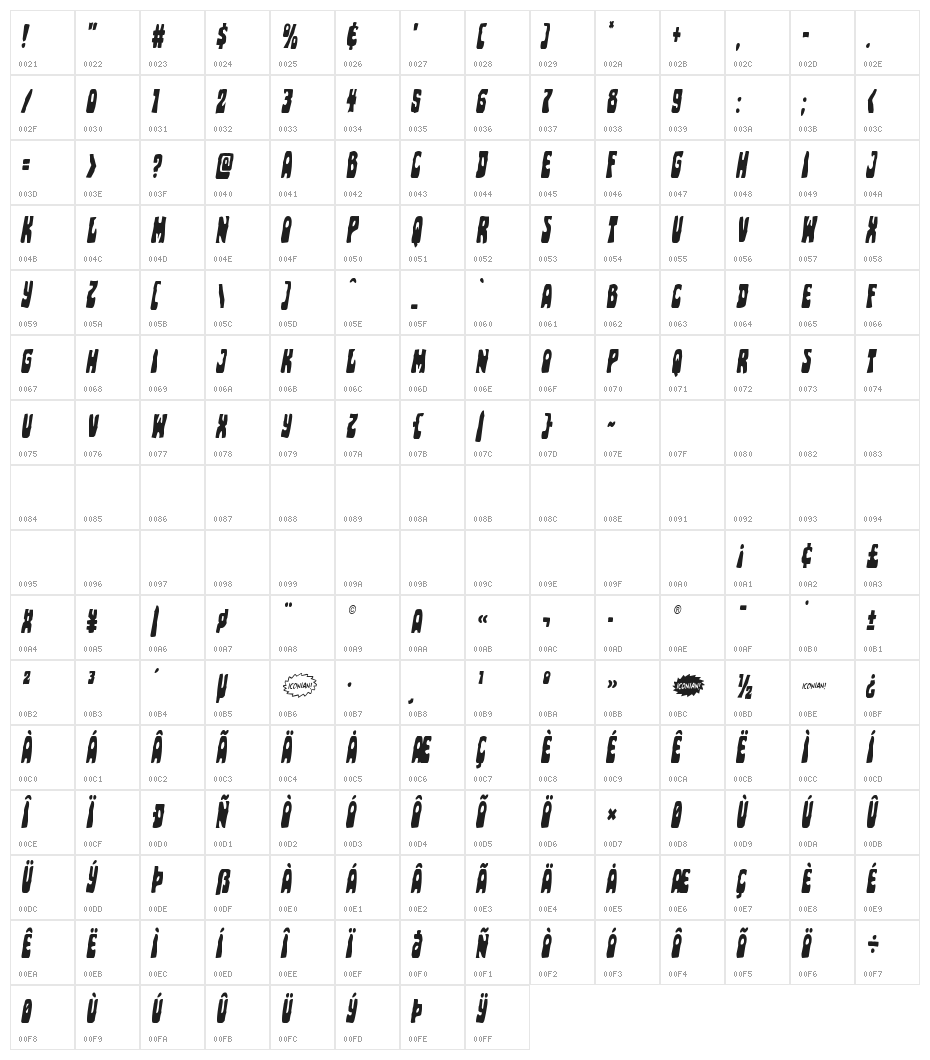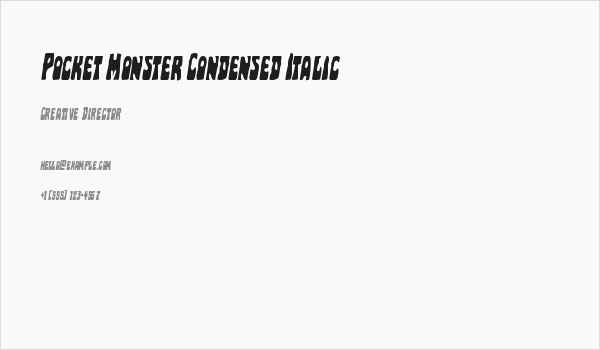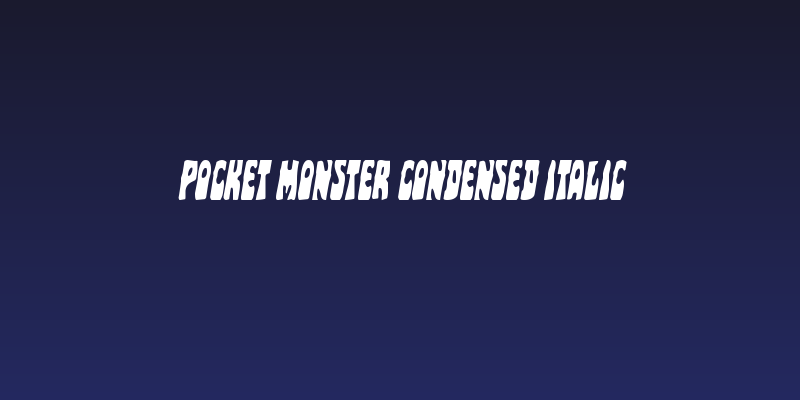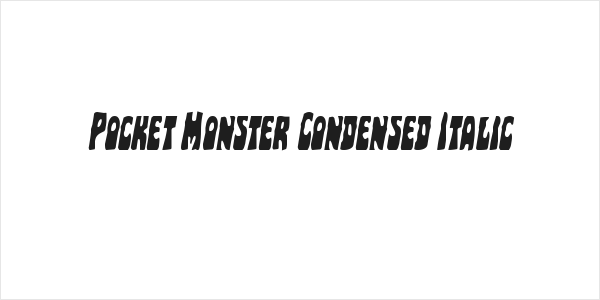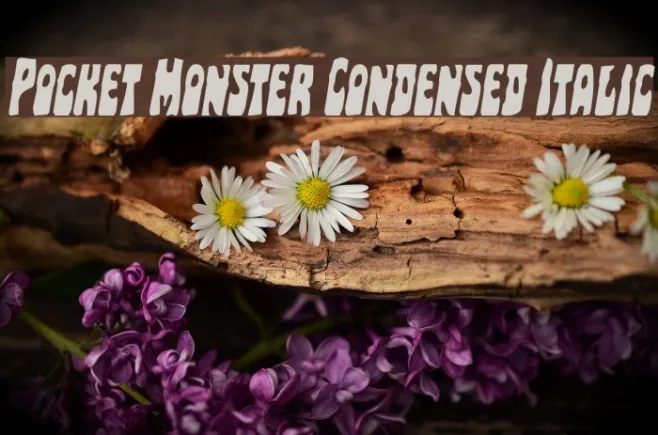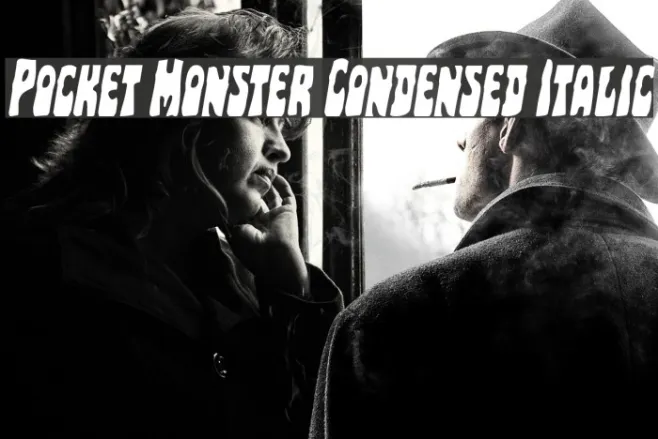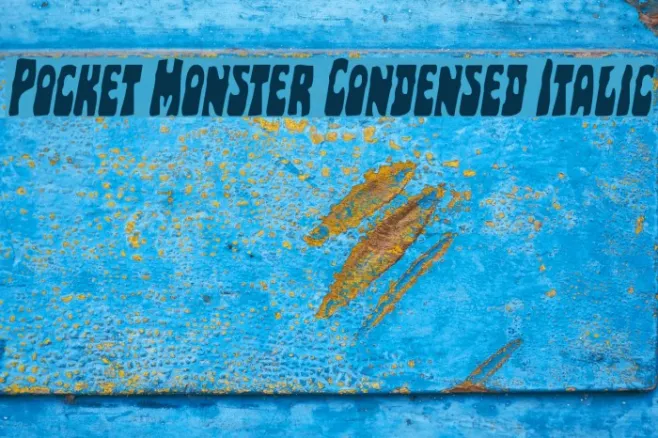
Pocket Monster Condensed Italic Font
Pocket Monster Condensed Italic Description
This font features a bold and dynamic style with a condensed and italicized form. The characters have a playful and energetic appearance, with thick strokes and a slightly slanted orientation that adds a sense of movement. The uppercase letters are robust and impactful, making them suitable for attention-grabbing headlines. The numbers and special characters maintain the same boldness, ensuring consistency across different uses. The overall design is reminiscent of a playful, cartoon-like aesthetic, making it ideal for projects that require a fun and engaging visual element.
| Overall Style | Playful, Energetic, Cartoon-like |
| Proposed Projects | Ideal for children's book covers, playful branding, video game titles, and posters. |